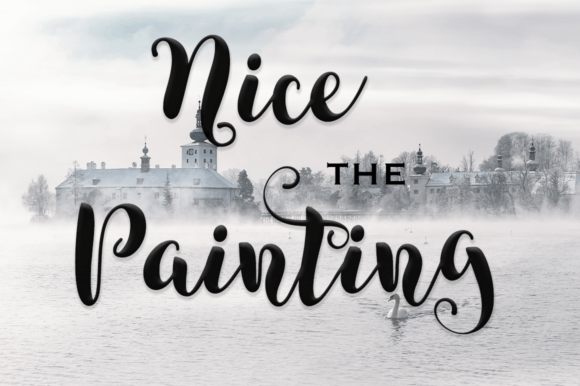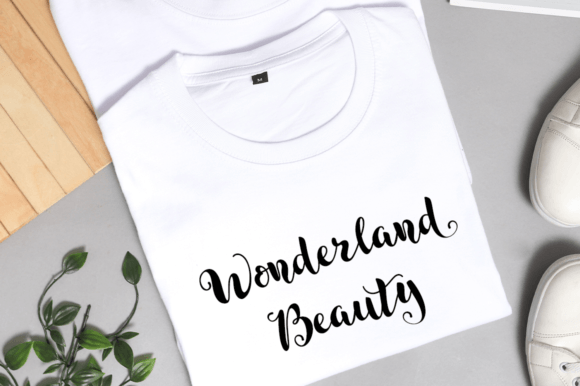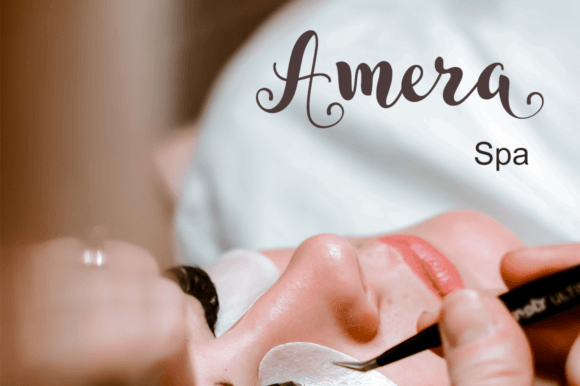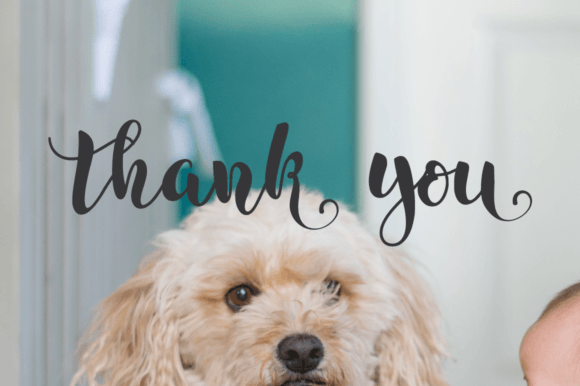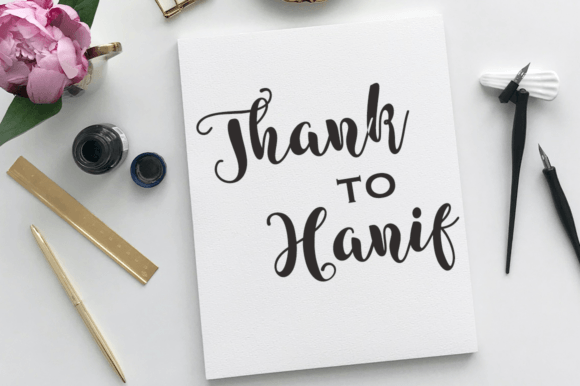
Introducing Grand Font: Elevate Your Designs with a Modern and Unique Handwritten Style
Are you looking for a font that can add a touch of elegance and sophistication to your designs? Look no further than Grand Font, a modern and unique handwritten font that is perfect for a wide range of design projects. With its beautiful and flowing script, Grand Font is ideal for creating stunning headings, logos, wedding invitations, T-shirts, letterheads, signatures, labels, news, posters, badges, and much more.
What Makes Grand Font So Special?
Grand Font is a modern and unique handwritten font that stands out from the crowd. Its beautiful and elegant script is perfect for designers and crafters who want to add a touch of sophistication to their designs. The font is highly versatile and can be used for a wide range of design projects, from wedding invitations and logos to posters and T-shirts.
Key Features of Grand Font
- PUA Encoded: Grand Font is PUA encoded, which means you can access all of the glyphs and swashes with ease. This makes it easy to use the font and get the most out of its features.
- Modern and Unique: Grand Font is a modern and unique handwritten font that is perfect for designers and crafters who want to create something special.
- Highly Versatile: The font is highly versatile and can be used for a wide range of design projects, from wedding invitations and logos to posters and T-shirts.
- Elegant Script: Grand Font has a beautiful and elegant script that is perfect for creating stunning designs.
How to Use Grand Font in Your Designs
Grand Font is easy to use and can be incorporated into a wide range of design projects. Here are a few ideas to get you started:
- Wedding Invitations: Use Grand Font to create stunning wedding invitations that will set the tone for the big day.
- Logos: Use Grand Font to create a unique and memorable logo for your business or brand.
- T-Shirts: Use Grand Font to create eye-catching T-shirts that will stand out from the crowd.
- Posters: Use Grand Font to create stunning posters that will grab attention and leave a lasting impression.
Benefits of Using Grand Font
There are many benefits to using Grand Font in your designs. Here are a few:
- Stand Out from the Crowd: Grand Font is a unique and modern font that will help your designs stand out from the crowd.
- Elegant and Sophisticated: Grand Font has an elegant and sophisticated script that is perfect for creating high-end designs.
- Easy to Use: Grand Font is PUA encoded, which makes it easy to use and get the most out of its features.
- Highly Versatile: Grand Font can be used for a wide range of design projects, from wedding invitations and logos to posters and T-shirts.